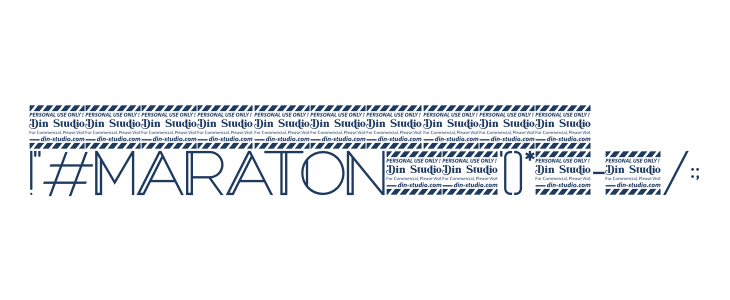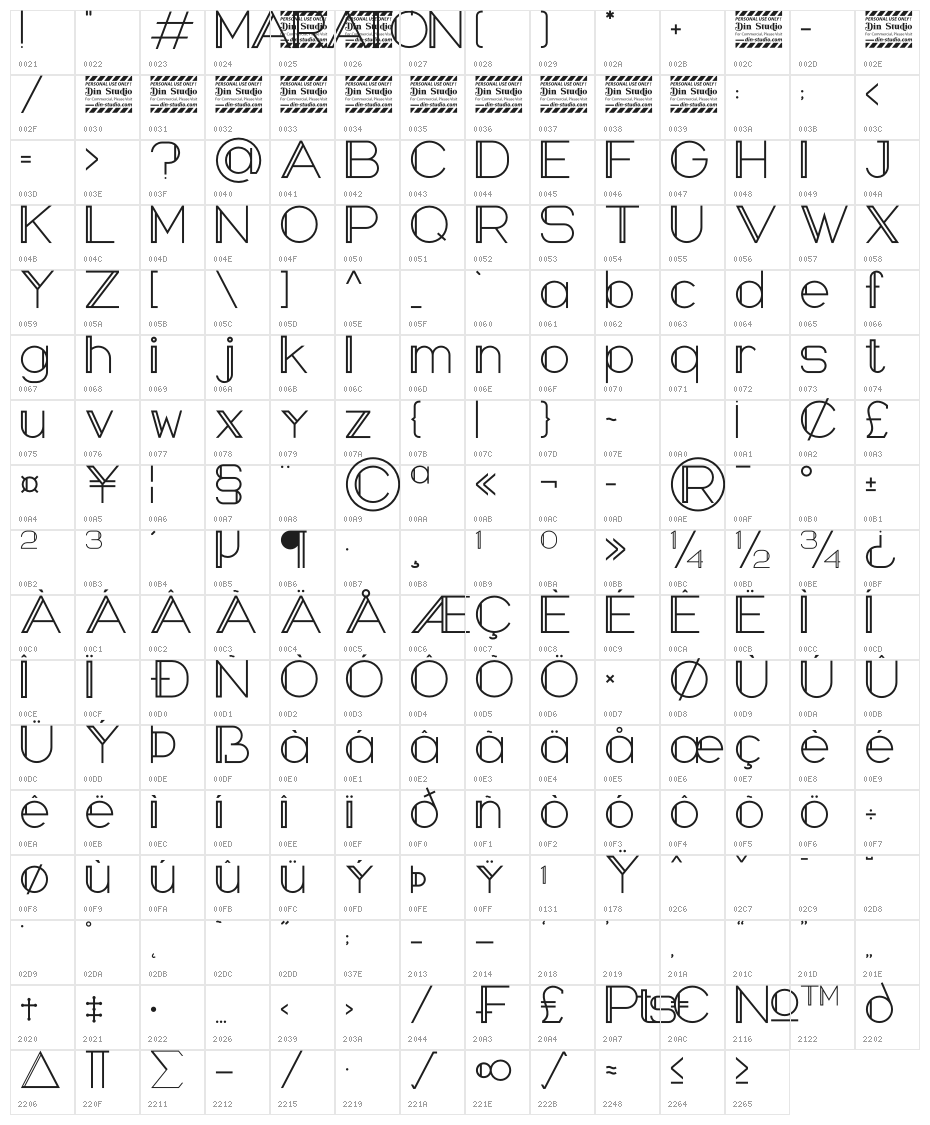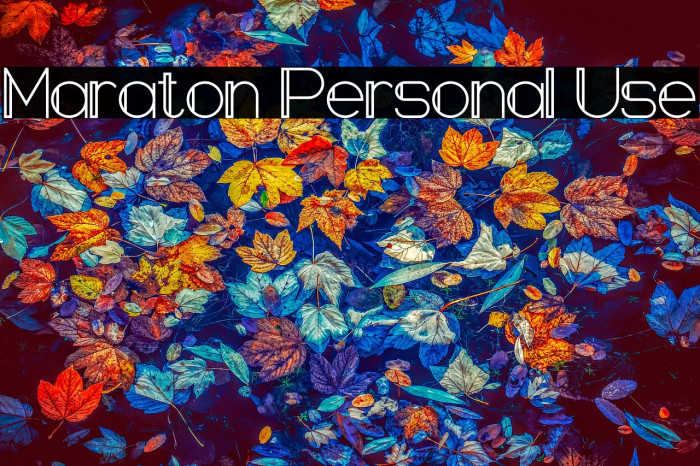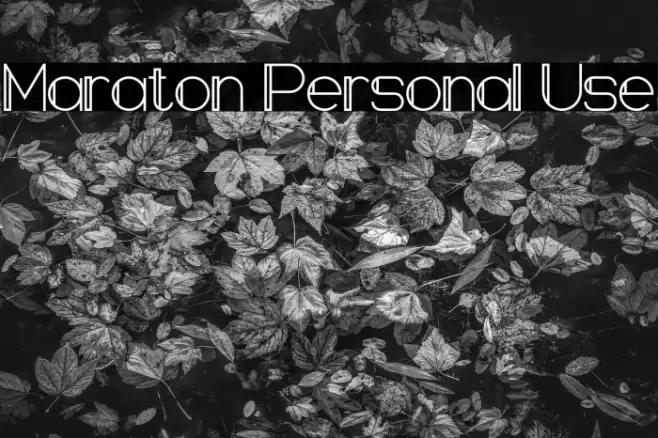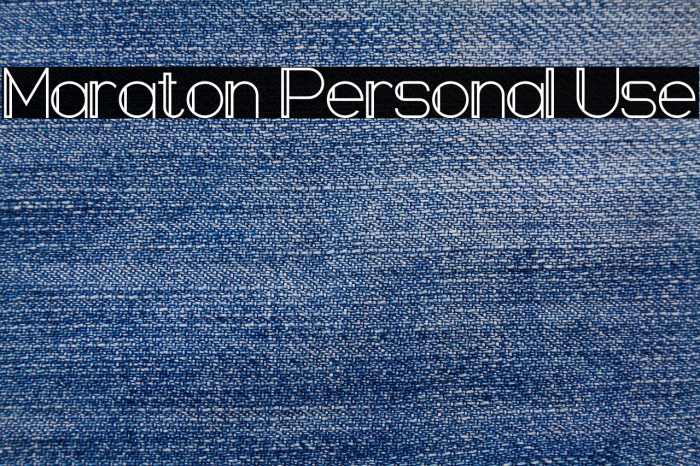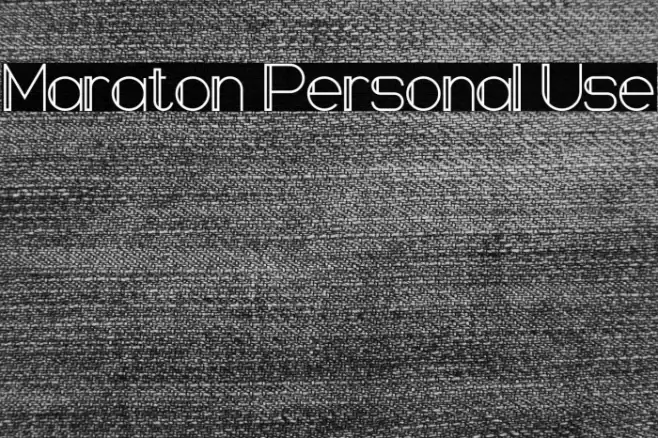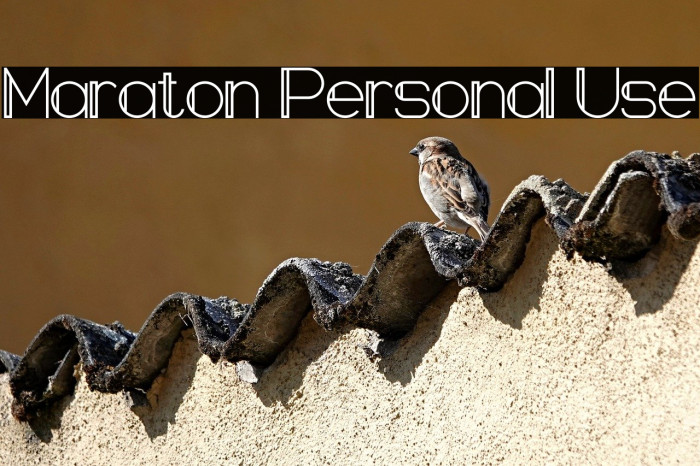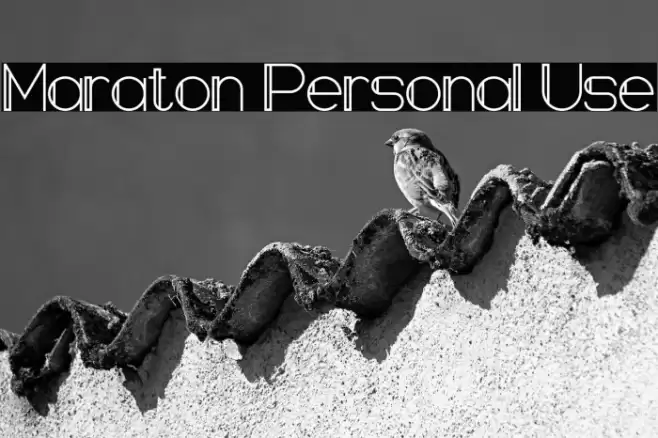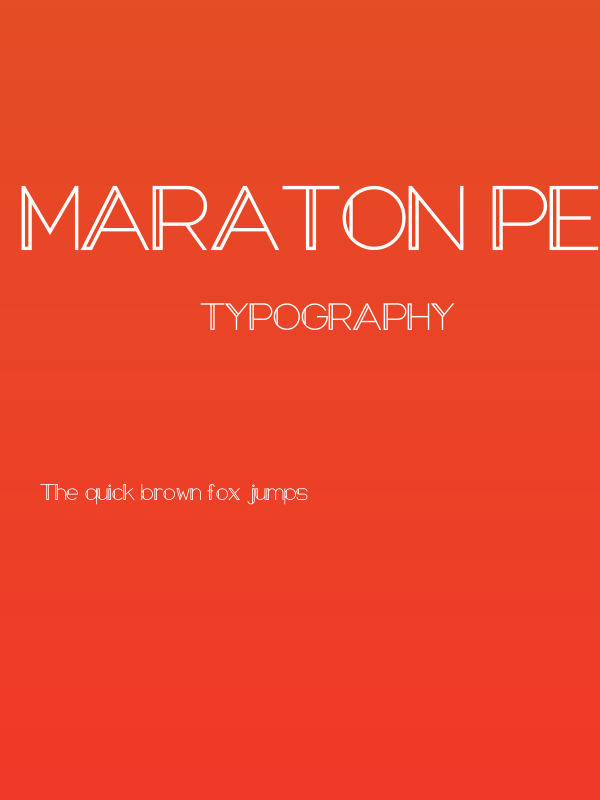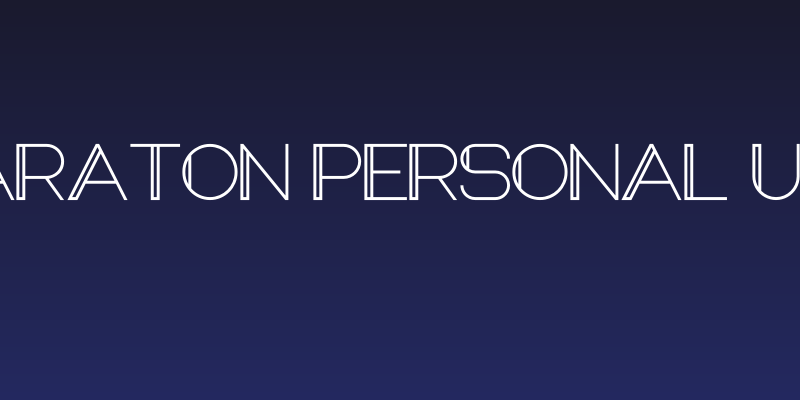
Maraton Personal Use Font
Maraton Personal Use Description
This font features a modern, geometric design with clean lines and a minimalist aesthetic. The uppercase and lowercase letters are crafted with a consistent stroke width, giving it a uniform appearance. The characters are slightly condensed, enhancing its sleek and contemporary look. The font includes a full set of uppercase and lowercase letters, numbers, and a selection of special characters. Its design is both functional and stylish, making it suitable for a variety of design projects.